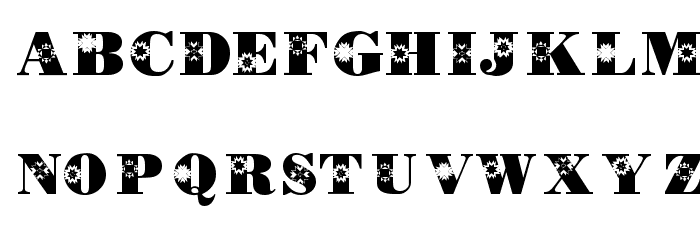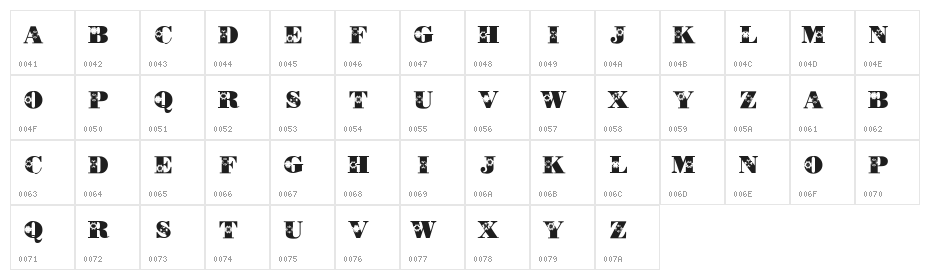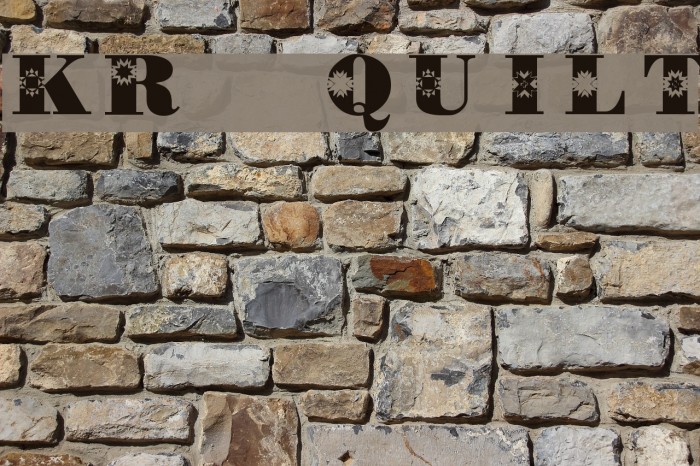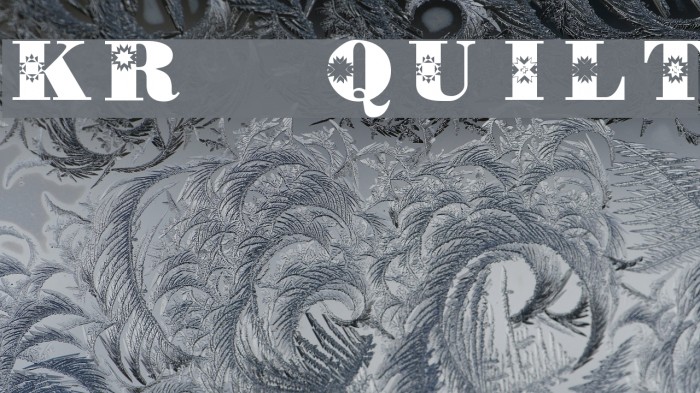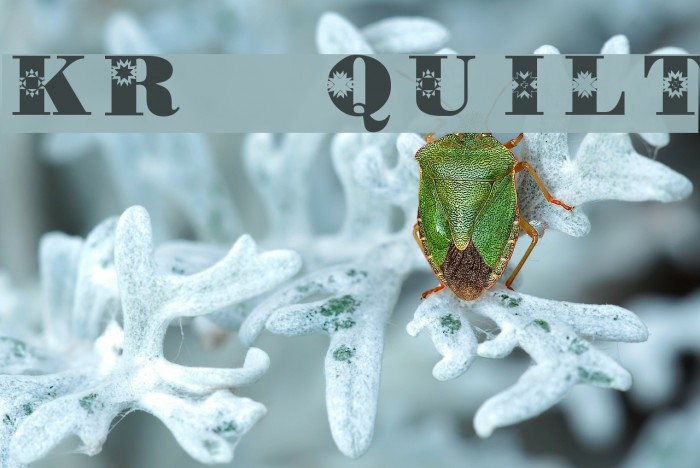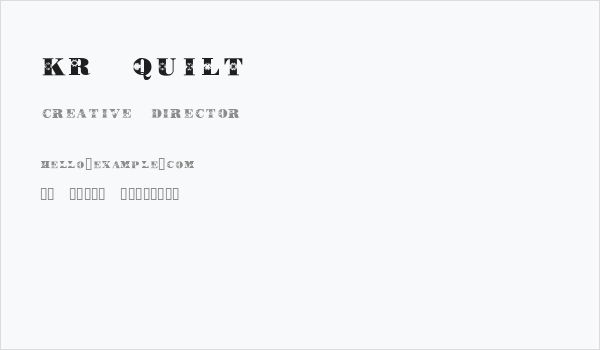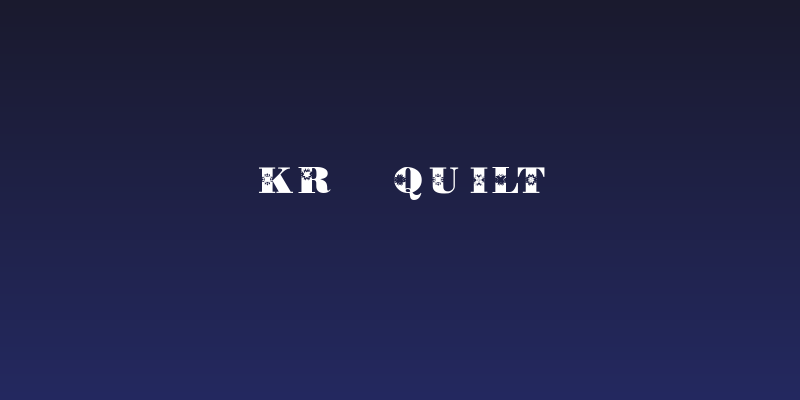
KR Quilt Font
KR Quilt Description
This font features a bold, decorative style with intricate quilt-like patterns embedded within each character. The uppercase letters are prominently designed, showcasing a unique blend of traditional serif elements with a modern twist. The patterns are consistent across all characters, providing a cohesive and visually engaging appearance. The font's boldness and decorative nature make it stand out, ideal for projects that require a touch of creativity and flair. The characters are evenly spaced, ensuring readability while maintaining the decorative elements.
| Proposed Projects | Ideal for creative projects such as greeting cards, posters, and artistic branding materials. |